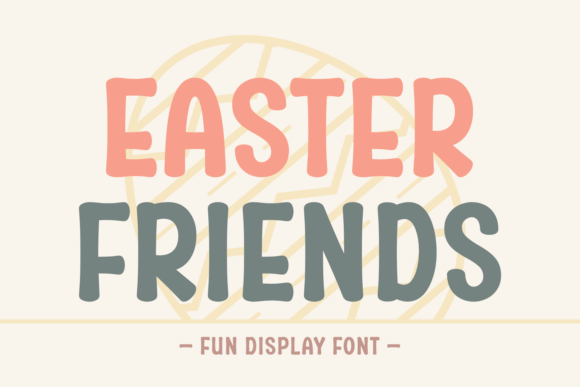
Easter Friends Font: Elevate Your Designs with a Touch of Whimsy and Charm
Are you on the hunt for a font that can add a dash of creativity and versatility to your design projects? Look no further than Easter Friends, an extraordinary display font that has captured the hearts of designers worldwide. With its unique blend of modernity and craftsmanship, Easter Friends is the perfect choice for those seeking to infuse their branding projects, social media posts, and various design materials with a touch of artistic flair.
What Makes Easter Friends Stand Out?
Easter Friends is not just another font; it’s an experience. Its distinct charm lies in its ability to seamlessly blend modern design elements with a hint of retro, making it a trendy yet timeless choice for any design project. Whether you’re looking to create eye-catching T-shirts, vibrant banners, engaging social media posts, or captivating stickers, Easter Friends is up to the task.
As a craft and modern font, Easter Friends boasts a unique aesthetic that sets it apart from more traditional fonts. Its adaptability is one of its strongest suits, allowing it to bring to life the spirit of any season. From the freshness of spring and the coziness of winter to the warmth of autumn, Easter Friends can help you create designs that are not only visually appealing but also deeply thematic.
Easter Friends: The Perfect Choice for Easter-Themed Projects
Given its name, it’s only fitting that Easter Friends shines brightest in Easter-themed projects. Imagine adorning your Easter-themed banners, greeting cards, and social media posts with a font that exudes joy, renewal, and the whimsy of the season. Easter Friends does just that, bringing your designs to life with its playful and artistic vibe.
However, the font’s utility doesn’t stop at Easter. Its versatility means it can be a go-to choice for a wide array of design projects throughout the year. The elegance it brings to spring designs, the warmth it adds to winter creations, and the vibrant touch it lends to autumn visuals make it a valuable addition to any designer’s toolkit.
Tips for Using Easter Friends in Your Designs
Staying Trendy with Easter Friends
In the fast-paced world of design, staying relevant is key. Easter Friends helps you achieve just that. Its trendy yet timeless design ensures that your creations remain fresh and appealing, regardless of the season. The font’s hint of retro charm prevents it from feeling too contemporary, making it a versatile choice that stands the test of time.
Moreover, Easter Friends’ adaptability to various design themes and trends means you can use it across different projects without worrying about it becoming outdated. Whether you’re creating designs for Easter, summer, autumn, or winter, Easter Friends can help you convey your unique style and message.
Easter Friends is more than just a font; it’s a design experience. Its unique blend of modernity, craftsmanship, and whimsy makes it a valuable asset for designers looking to elevate their projects. Whether you’re working on Easter-themed designs or projects for other seasons, Easter Friends offers the versatility, charm, and artistic touch you need to make your creations stand out.